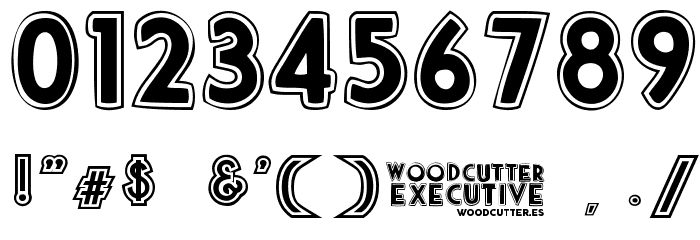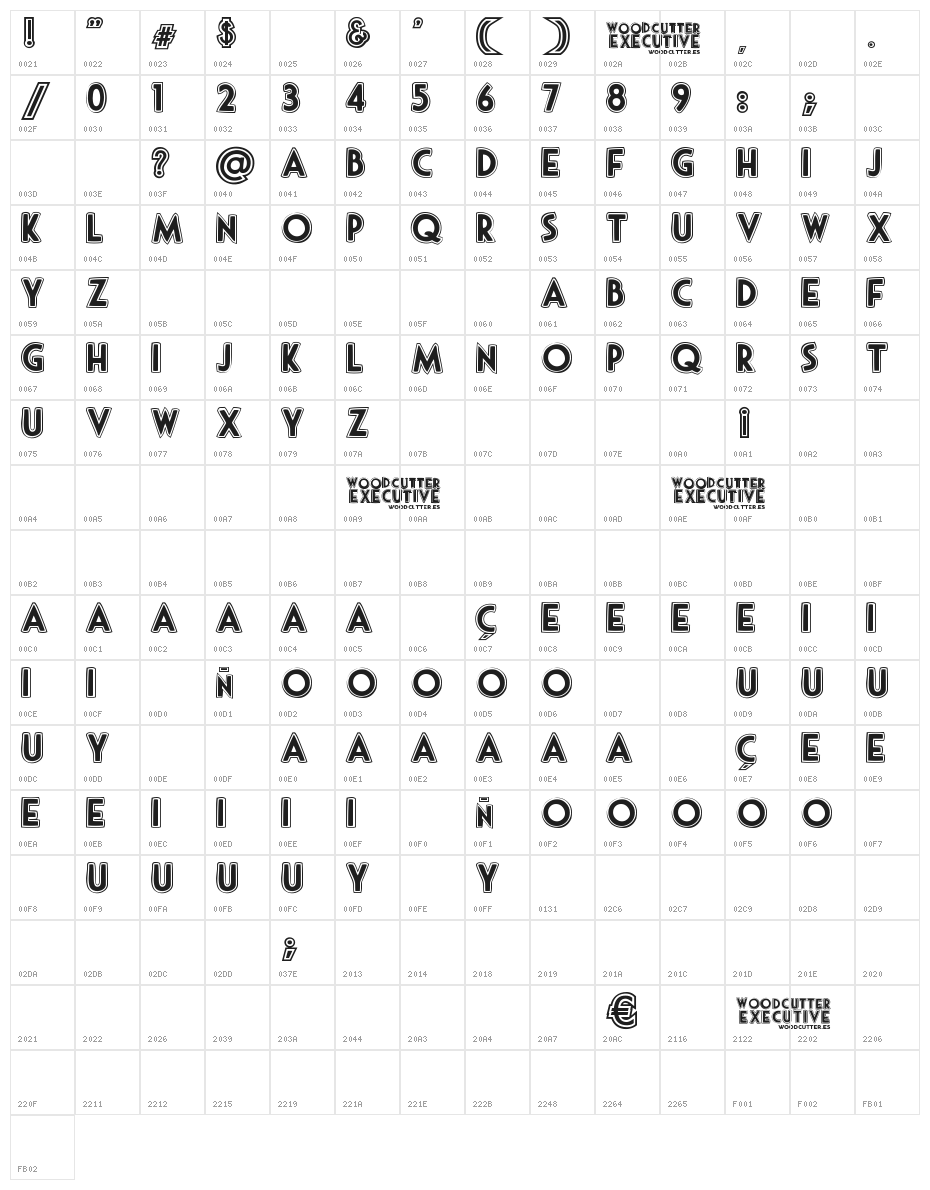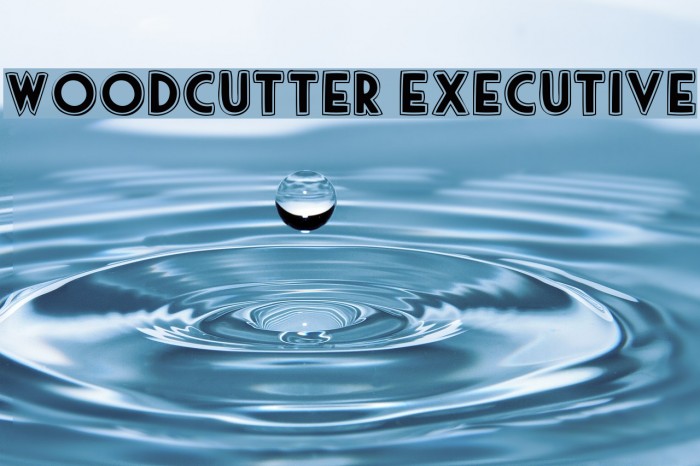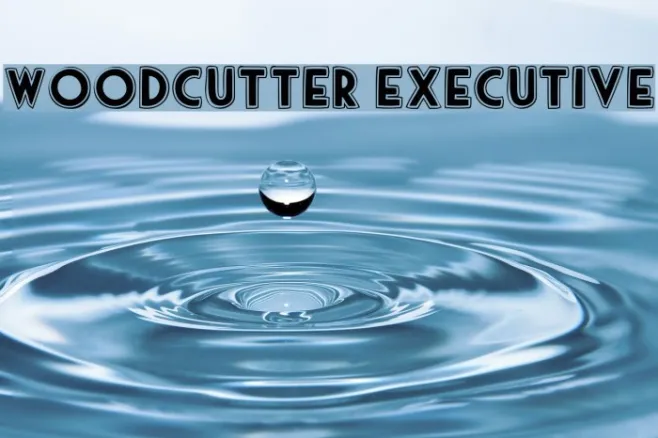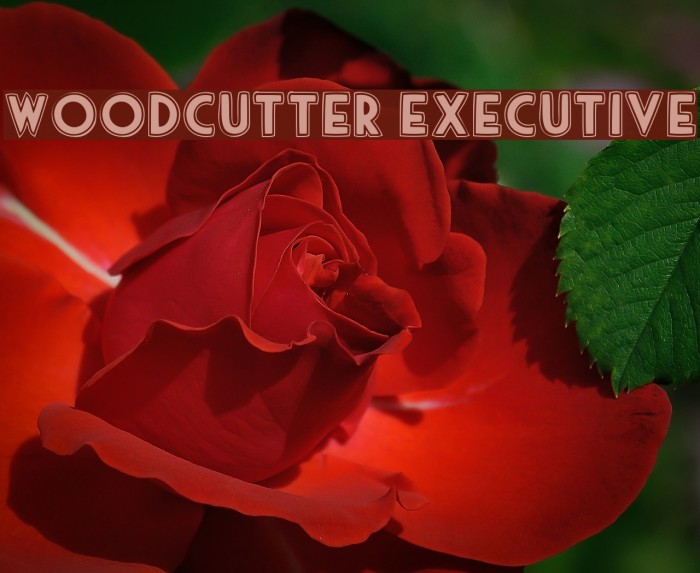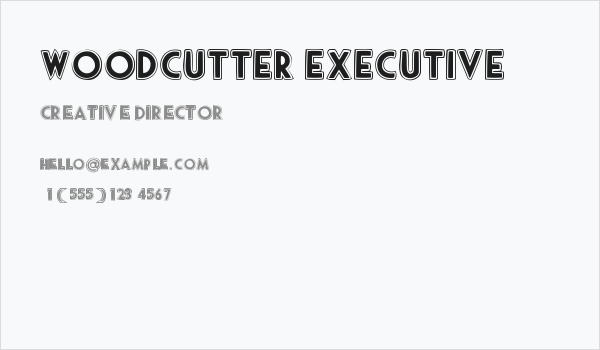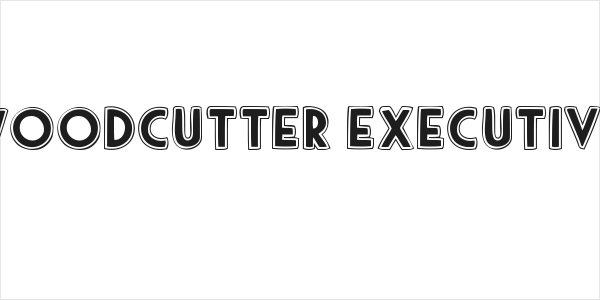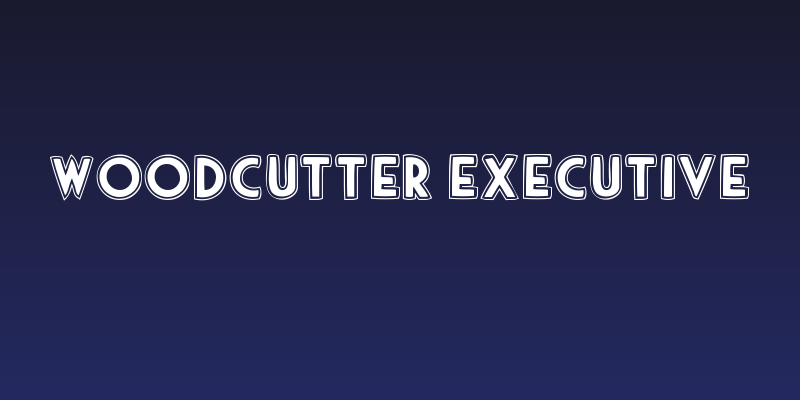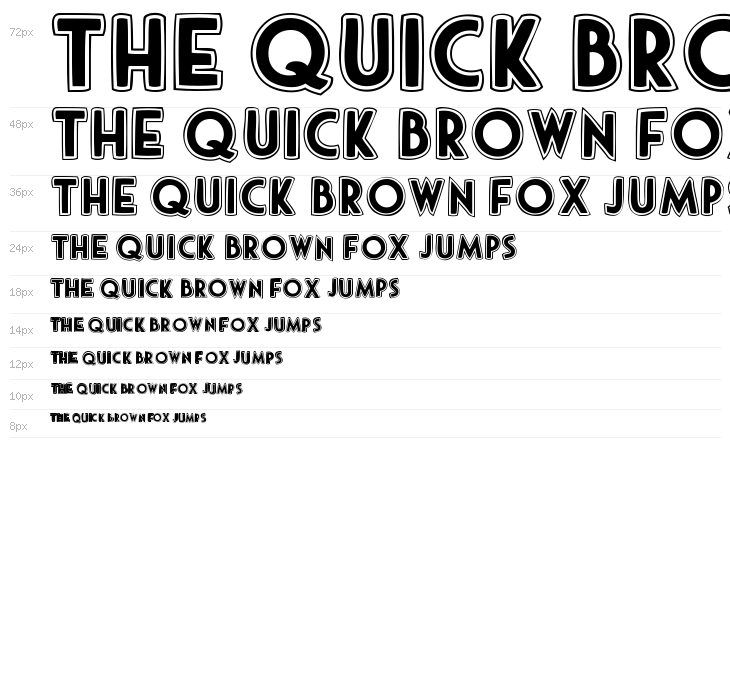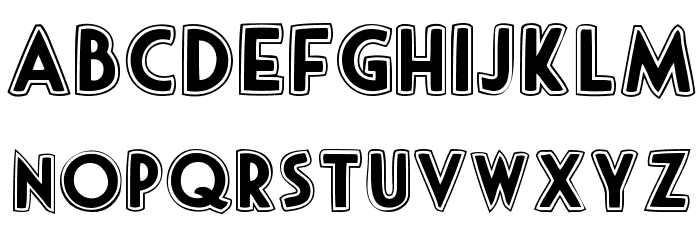
woodcutter executive Font
woodcutter executive Description
This font features a bold and striking design with a strong emphasis on geometric shapes. The characters are outlined, giving them a three-dimensional effect that stands out. The uppercase letters are uniform in height, while the numbers maintain a consistent style that complements the alphabet. The special characters are designed to match the boldness of the letters and numbers, ensuring a cohesive look throughout. This font is ideal for projects that require a modern and impactful appearance.